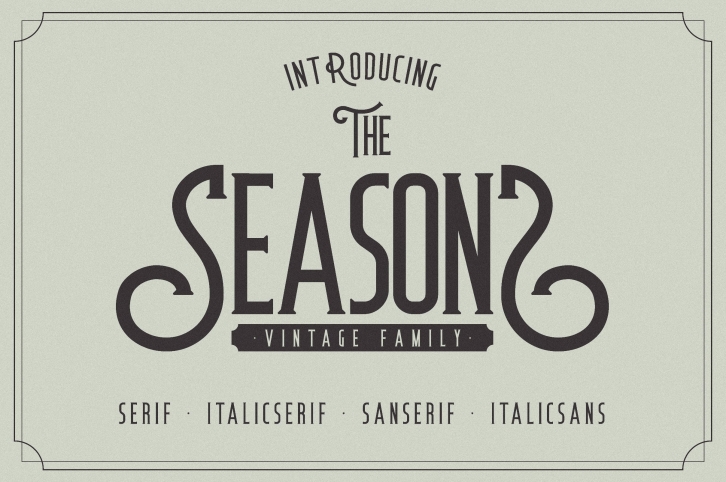
The Seasons is a font inspired by the fonts at the end of 1800. The theme of vintage, classic and retro. This font is suitable for the needs of design vintage posters, vintage logo, logogram, and others.
The Season has four styles, namely: serif, italic serif, san serif and san italic.